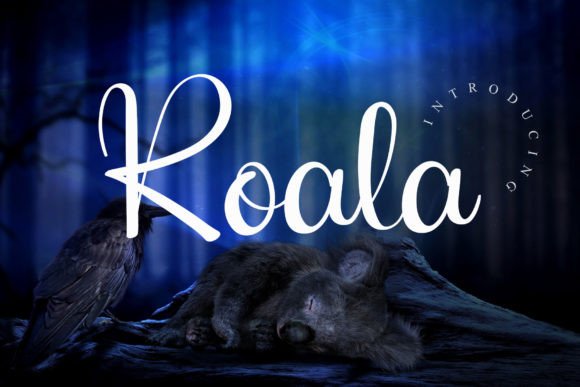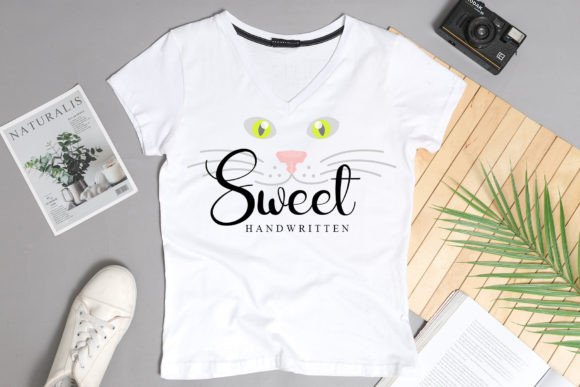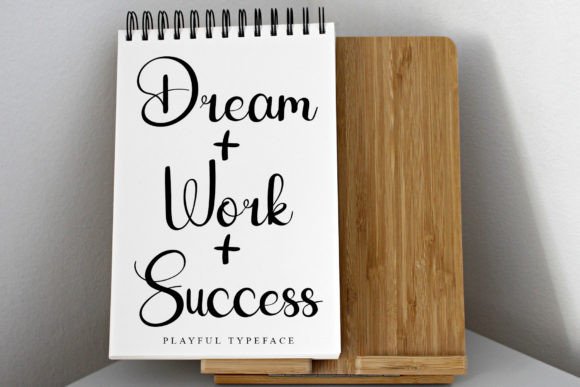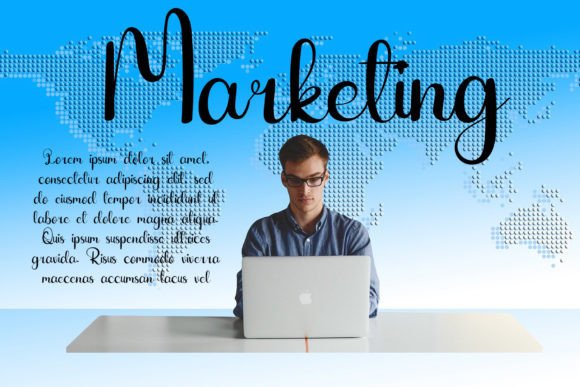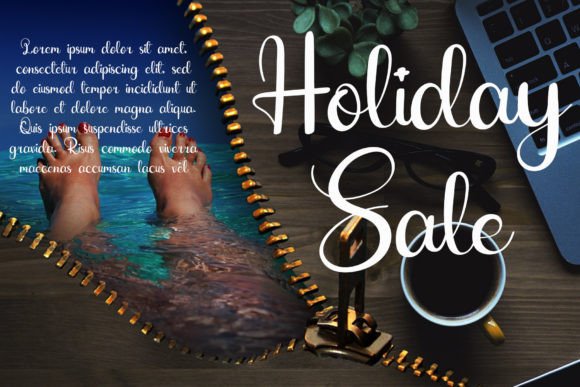
Koala Font
About Koala Font
**Koala Font: Handwritten Elegance for Spectacular Creations**
Introducing “Koala,” a beautiful handwritten font designed to infuse elegance into your projects. Perfect for a diverse range of applications, including wedding invitations, greeting cards, billboards, logos, business cards, and any design that benefits from a handwritten touch. Koala features a varied baseline and is meticulously crafted to bring a unique charm to your creations, making your ideas come to life with spectacular beauty.
**Handwritten Elegance:**
Koala brings a touch of handwritten elegance to your designs. Each stroke is carefully crafted to evoke a personal and authentic feel, making it an ideal choice for projects that require warmth and sophistication. Whether it’s a wedding invitation or a business logo, Koala adds a layer of beauty that captivates.
**Versatile Applications:**
The versatility of Koala shines through, making it suitable for a broad range of applications. From the intimate setting of a wedding invitation to the bold presence of a billboard or logo, Koala adapts effortlessly to various design needs. Its varied baseline ensures that each character contributes to the overall visual appeal, creating a harmonious and captivating result.
**Carefully Crafted Font:**
Koala is not just a font; it’s a meticulously crafted piece of art. The attention to detail is evident in every curve and line, creating a font that stands out with precision and beauty. The varied baseline adds a dynamic quality, making your text come alive with character and charm.
**Create Spectacular Creations:**
Choose Koala to create spectacular creations that go beyond the ordinary. Let this font be the catalyst for turning your ideas into visually stunning designs. The handwritten beauty of Koala ensures that your projects not only look real but also resonate with authenticity and style.
Koala is more than a font; it’s an invitation to infuse your designs with the artistry of handwriting. Let it be the muse for your creativity, adding a touch of elegance that makes your projects truly exceptional. With Koala, your ideas take center stage, beautifully brought to life with the grace and charm of handwritten perfection.